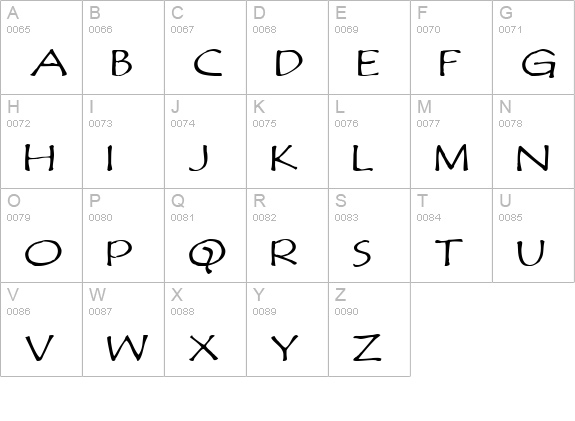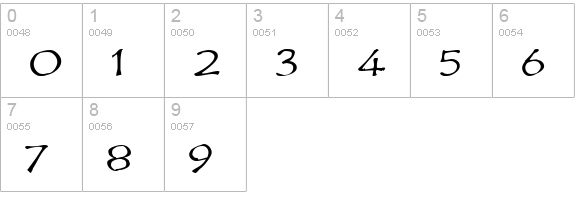
DiMurphic Font Details
DiMurphic font is a sleek and modern typeface that combines elegance with a touch of playfulness. Its unique design features clean lines and stylish curves that make it perfect for a wide range of design projects. Whether you're looking to create eye-catching logos, captivating headlines, or stunning branding materials, DiMurphic font has got you covered. What sets DiMurphic font apart is its versatility - it can be used for both professional and creative purposes, making it a must-have in any designer's toolkit. The font's readability and distinctiveness ensure that your message will always stand out, no matter the context. Best of all, DiMurphic font is completely free to download at FontsMarket.com. So why wait? Add this dynamic typeface to your collection today and elevate your designs to the next level.